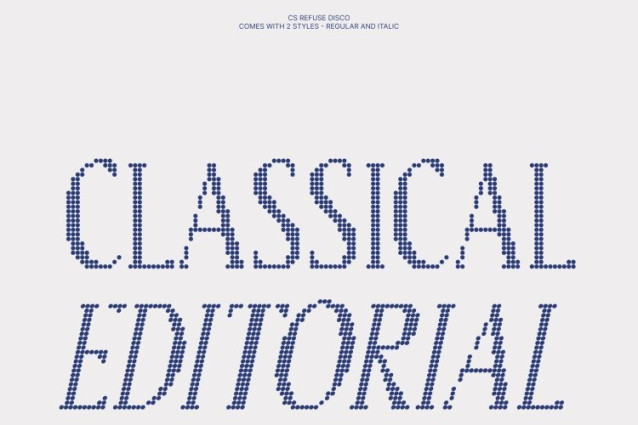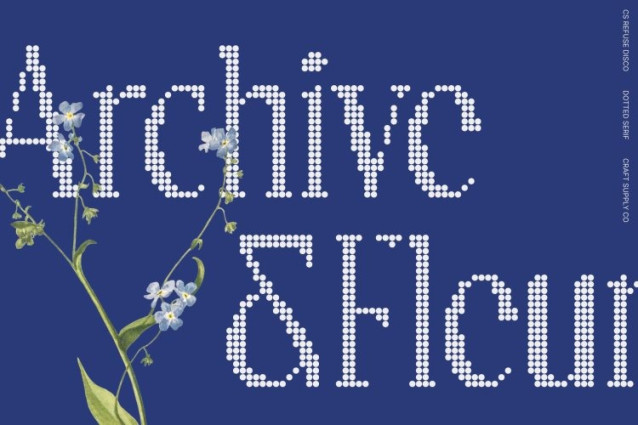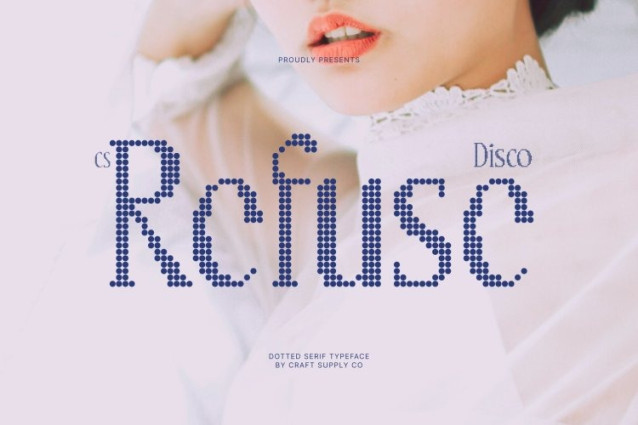
CS Refuse Disco Font
CS Refuse Disco Font – This is a sleek modern serif font that blends refined simplicity with a lively disco-style dotted texture. Its elegant curves and elongated forms create a graceful and high-end silhouette, while the dotted surface introduces a subtle decorative sparkle. This combination brings together sophisticated typography and playful visual rhythm.
Elongated Forms with Luminous Character
The font’s elongated letterforms create a flowing visual rhythm that feels elegant and balanced. Smooth curves soften the structure, ensuring readability while maintaining a polished presence. The disco-inspired dotted texture adds depth and brightness, giving each letter a distinctive character without overwhelming its refined design.
Clean Simplicity with Stylish Personality
Built on clarity and thoughtful proportions, this font offers a professional and modern typographic voice. Its minimalist structure ensures versatility, while the decorative dotted detail adds personality and visual intrigue, transforming simple serif forms into expressive display typography.
Perfect for Branding, Editorials, and Packaging
This font works beautifully across headlines, branding systems, product packaging, posters, and editorial layouts. Its refined structure provides sophistication for professional projects, while the sparkling texture adds a memorable visual accent that helps designs stand out.